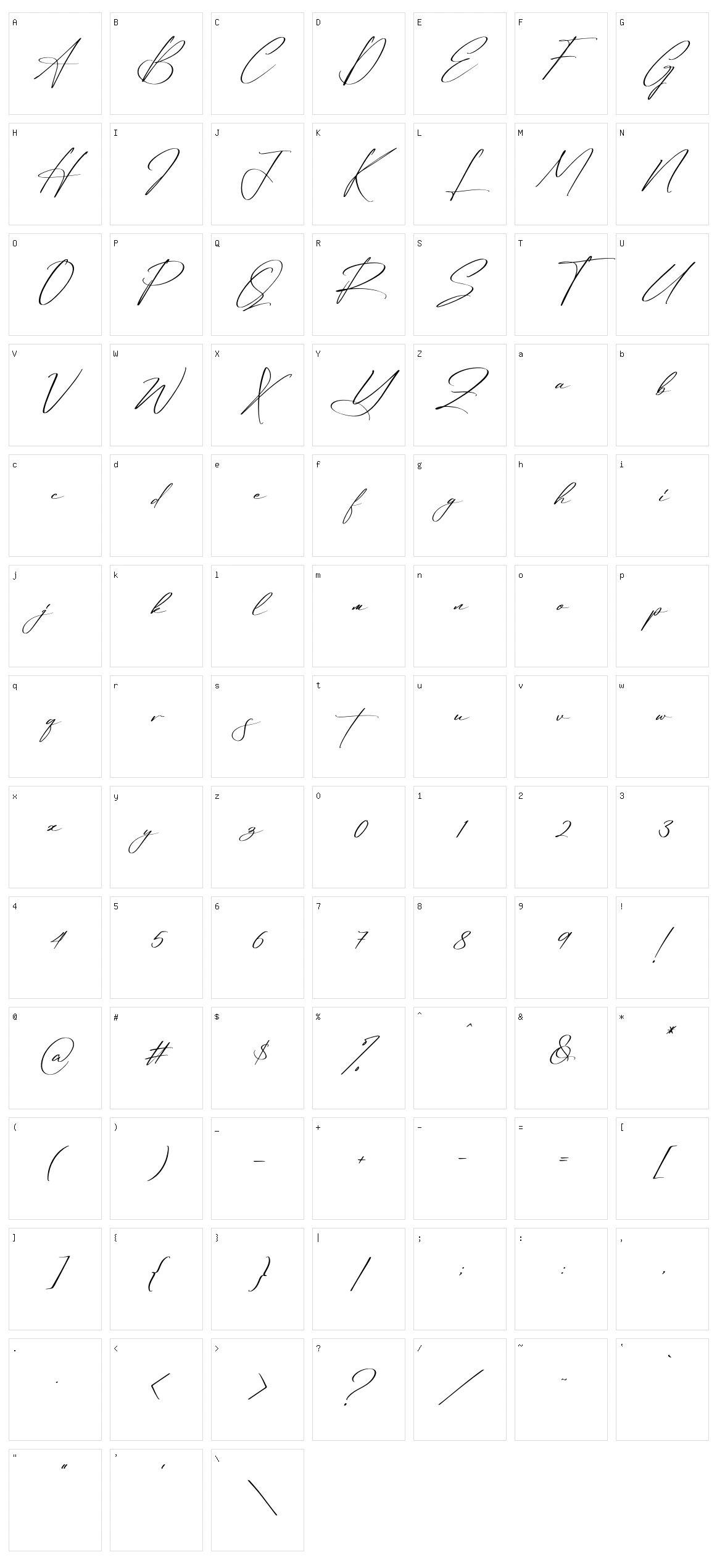
The free font Reltinatha Signature is carefully designed by Perspectype Studio - Letterena.com, showcasing a thoughtful balance of creativity and usability and falls under the Script font style. When you download the ZIP file, it contains only 440.52 KB of font files, making it lightweight and quick to download. Please review the license details below to understand permitted usage and distribution rights. If license information is not available, we recommend using this font for personal projects only or contacting the author directly for commercial usage permissions.